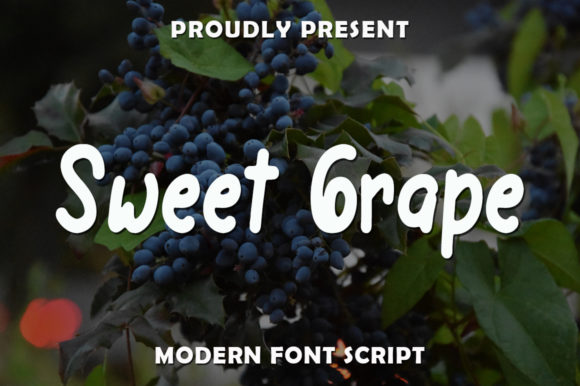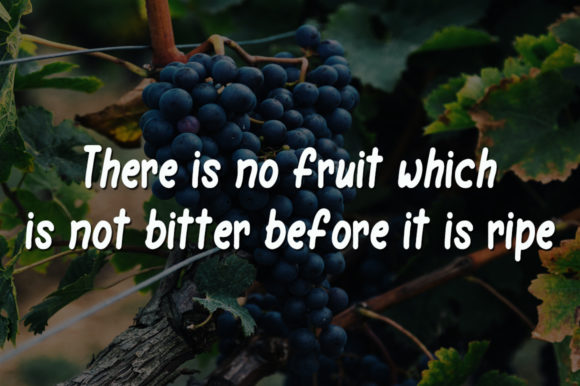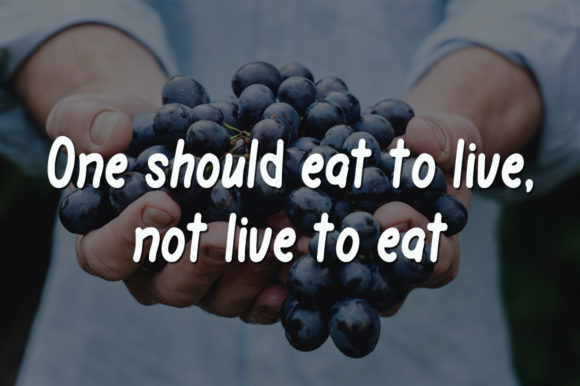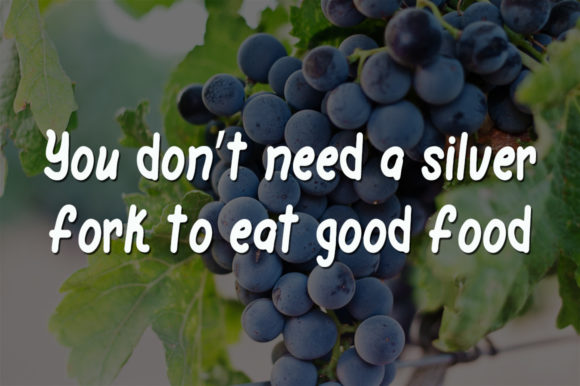
About Sweet Grape Font
Introducing Sweet Grape: The Cute and Natural Handwritten Font
Discover the delightful charm of Sweet Grape, a font that combines cuteness with a natural handwritten essence. Dainty and joyful, this font is the perfect choice for writing wedding invitations, cards, or any design that craves a friendly and personalized touch. Embrace the versatility of Sweet Grape as it adds a touch of warmth and happiness to your creative projects.
Sweet Grape’s cute and natural appeal brings a sense of playfulness and authenticity to your designs. Its handwritten style adds a personal touch, making your text feel like a warm and heartfelt message.
As a dainty and joyful font, Sweet Grape exudes a sense of happiness and cheer. Each letter carries a unique charm, infusing your creations with a sweet and endearing vibe.
The font’s suitability for wedding invitations and cards makes it the perfect choice for expressing love and celebration. It adds a friendly and personalized touch, setting the tone for a truly special occasion.
Embrace the delightful essence of Sweet Grape as you embark on creative endeavors. Let it be the font that spreads happiness and joy, making your designs truly memorable.
As you explore the possibilities of Sweet Grape, you’ll find it to be a font that enhances your projects with ease. Its cute and natural handwritten beauty elevates your work, ensuring that your creations leave a lasting impression.
So, let Sweet Grape be the font that brings a smile to your designs. Embrace its dainty and joyful charm, and watch as your projects come to life with a touch of warmth and friendliness. With Sweet Grape as your go-to font, your designs will resonate with love and happiness, captivating your audience and leaving a lasting impression. Embrace the sweetness of Sweet Grape and create designs that are truly heartwarming and unforgettable!